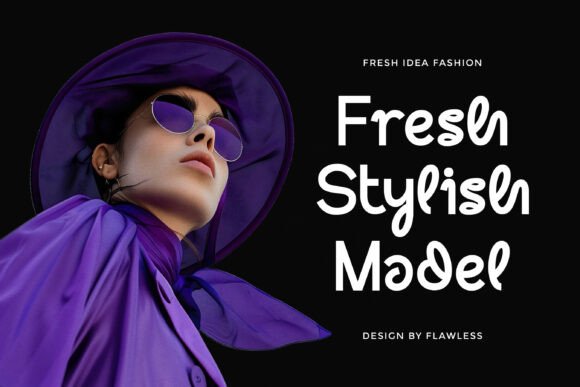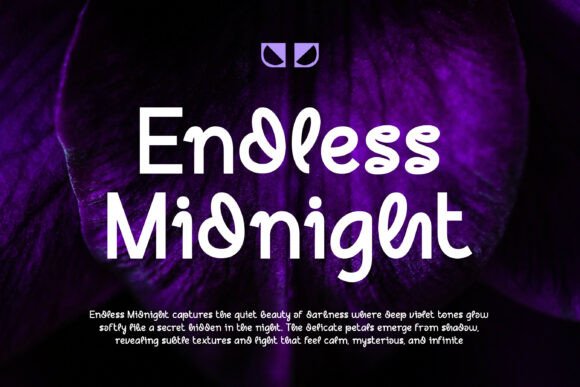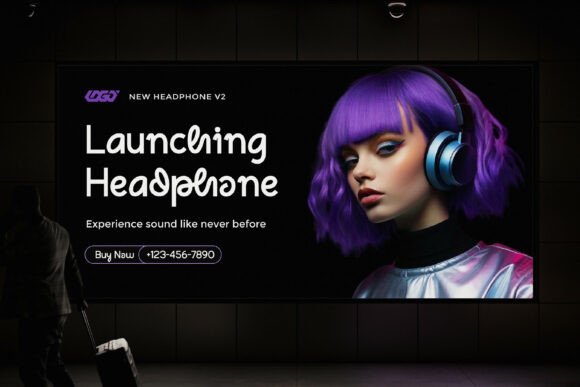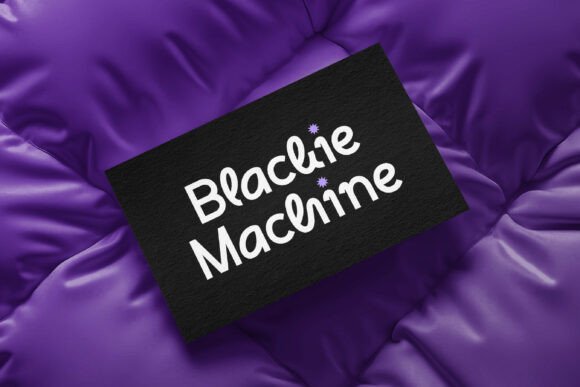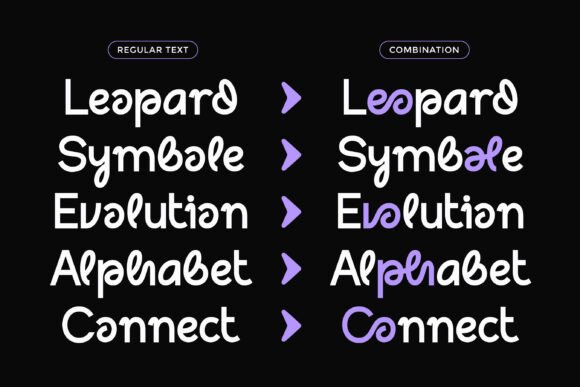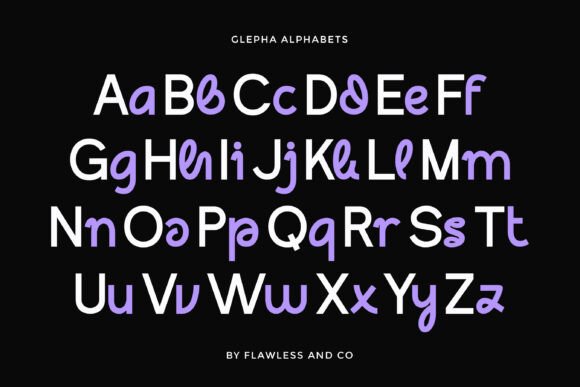
Introducing Glepha Font: The Experimental Loopy Sans Typeface
In the ever-evolving world of typography, a new font has emerged to challenge the status quo and push the boundaries of modern design. Meet Glepha, an experimental loopy sans typeface that is redefining the way we think about typography. With its playful and unconventional design, Glepha is set to bring a fresh wave of creativity to the world of design.
The Design Philosophy Behind Glepha
Glepha’s design is centered around the idea of experimentation and innovation. The font features fluid curves, looped details, and distinctive letterforms that come together to create a unique rhythm and artistic personality. This expressive style creates a dynamic visual flow, making each word feel lively, creative, and full of character. Whether you’re a designer, craftsperson, or simply someone who appreciates beautiful typography, Glepha is sure to captivate and inspire.
Key Features of Glepha Font
- Fluid Curves: Glepha’s curves are smooth and fluid, giving the font a sense of movement and energy.
- Looped Details: The font’s looped details add a playful and whimsical touch to each letterform.
- Distinctive Letterforms: Glepha’s letterforms are uniquely designed to create a cohesive and harmonious visual flow.
- Expressive Style: The font’s expressive style makes it perfect for creative projects that require a dynamic and artistic approach.
Uses of Glepha Font
Glepha’s versatility makes it suitable for a wide range of design applications. Here are some ideas to get you started:
- Branding and Logo Design: Glepha’s unique personality makes it perfect for creating memorable brand identities and logos.
- Typography: Use Glepha to add a touch of whimsy and creativity to your typographic compositions.
- Packaging Design: The font’s playful style makes it ideal for packaging design projects that require a fresh and youthful approach.
- Digital Design: Glepha can add a touch of personality to your digital designs, from social media graphics to website headers.
Why Choose Glepha Font?
With so many fonts available, why choose Glepha? Here are a few reasons why Glepha stands out from the crowd:
- Unique Design: Glepha’s experimental design makes it a one-of-a-kind font that will set your designs apart.
- Highly Versatile: The font’s versatility makes it suitable for a wide range of design applications.
- Easy to Read: Despite its playful style, Glepha is highly legible and easy to read.
- Constantly Evolving: As an experimental font, Glepha is constantly evolving, with new features and updates being added regularly.
Glepha font is a game-changer for designers and craftspersons looking to push the boundaries of modern typography. Its playful and unconventional design makes it perfect for creative projects that require a unique and artistic approach. With its fluid curves, looped details, and distinctive letterforms, Glepha brings a fresh wave of creativity to the world of design. So why not give Glepha a try and see how it can elevate your designs to the next level?